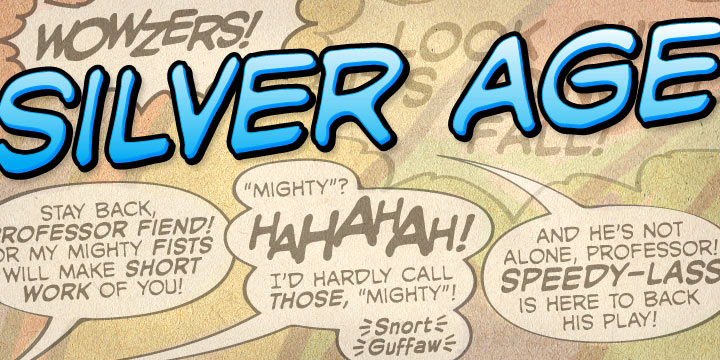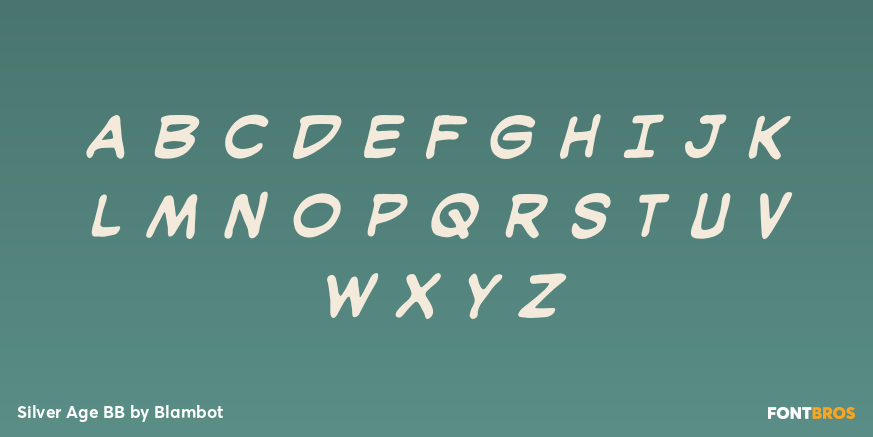
Silver Age BB
Font Family by Blambot
An upper and lowercase comic book font inspired by the classic lettering of the 1960s.
Super legible and chock-full of European characters. The OpenType uppercase versions have built-in autoligatures to swap out any duplicate letters for a more organic look!